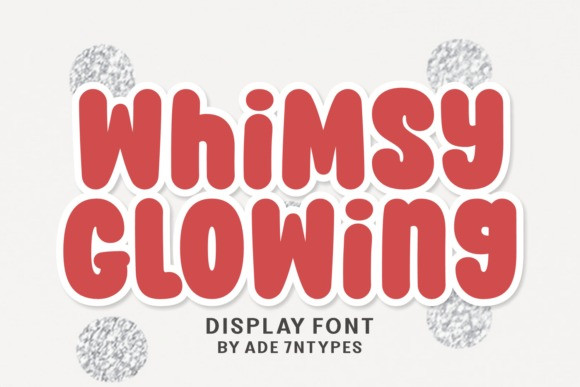
Whimsy Glowing Font
Designer: Ade (7NTypes)
Whimsy Glowing Font – a vivacious ensemble of typographic innovation! This playful font simply dazzles with a retro vibe that exudes a bold and quirky character. Skillfully handcrafted, its vintage charm offers a delightful blend of classic and modern elements. This fun, decorative font becomes an immediate focal point, making it an excellent choice for display purposes.
Its unique contours and captivating irregularities bring a distinct personality – perfect for boosting your brand’s visual appeal. It easily blends into logos, manifesting a charm that has an immediate recall value. Plus, it’s the ideal companion for any packaging design, enhancing visual interest and appeal.
Embrace the spirit of celebration with Whimsy Glowing Fonts as it gracefully embodies invitation cards, stickers, and greeting cards. This kids’ font evokes a sense of wonder and magic, intriguing young minds with its imaginative design. Unveil the magic of typography with the Whimsy Glowing Fonts!